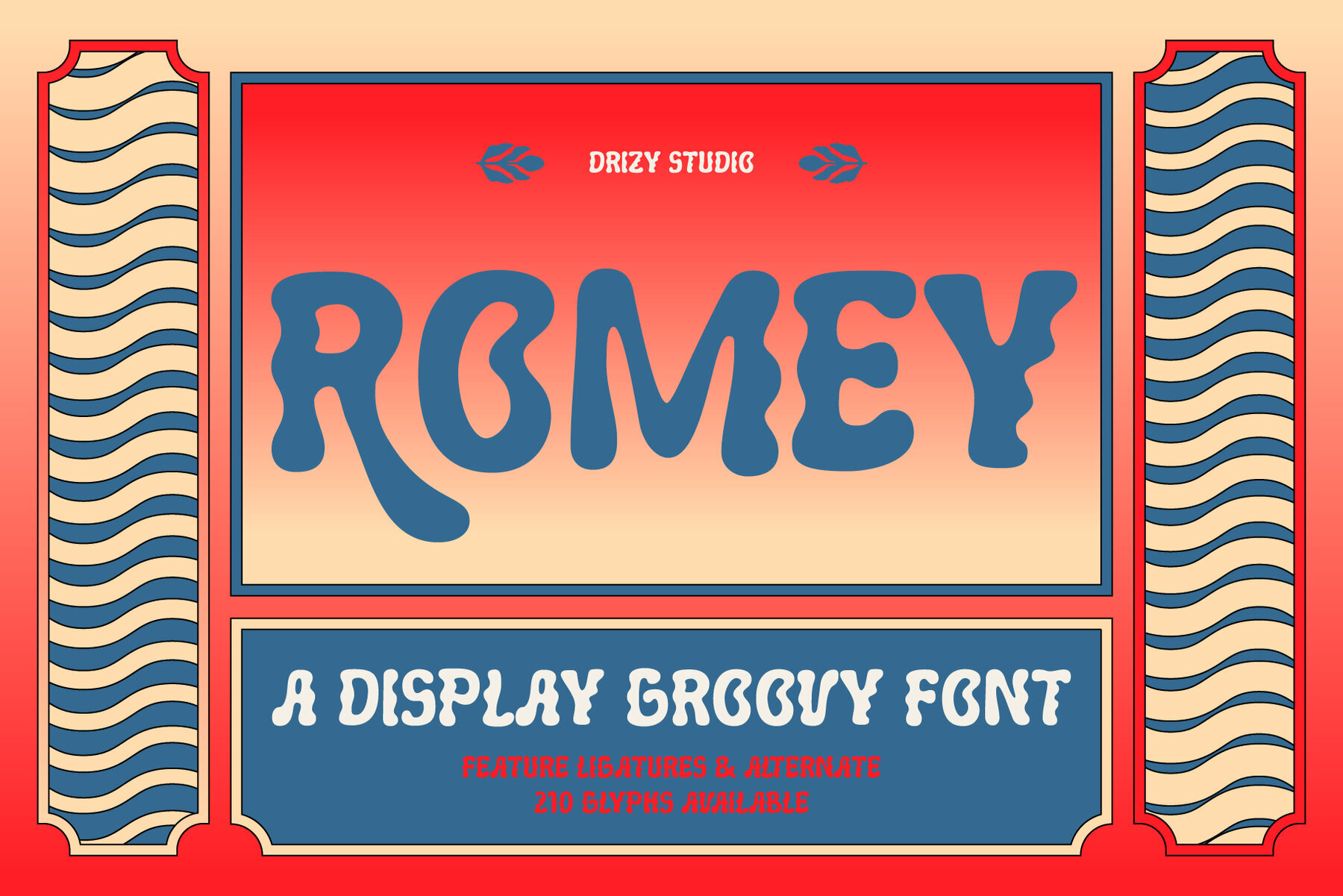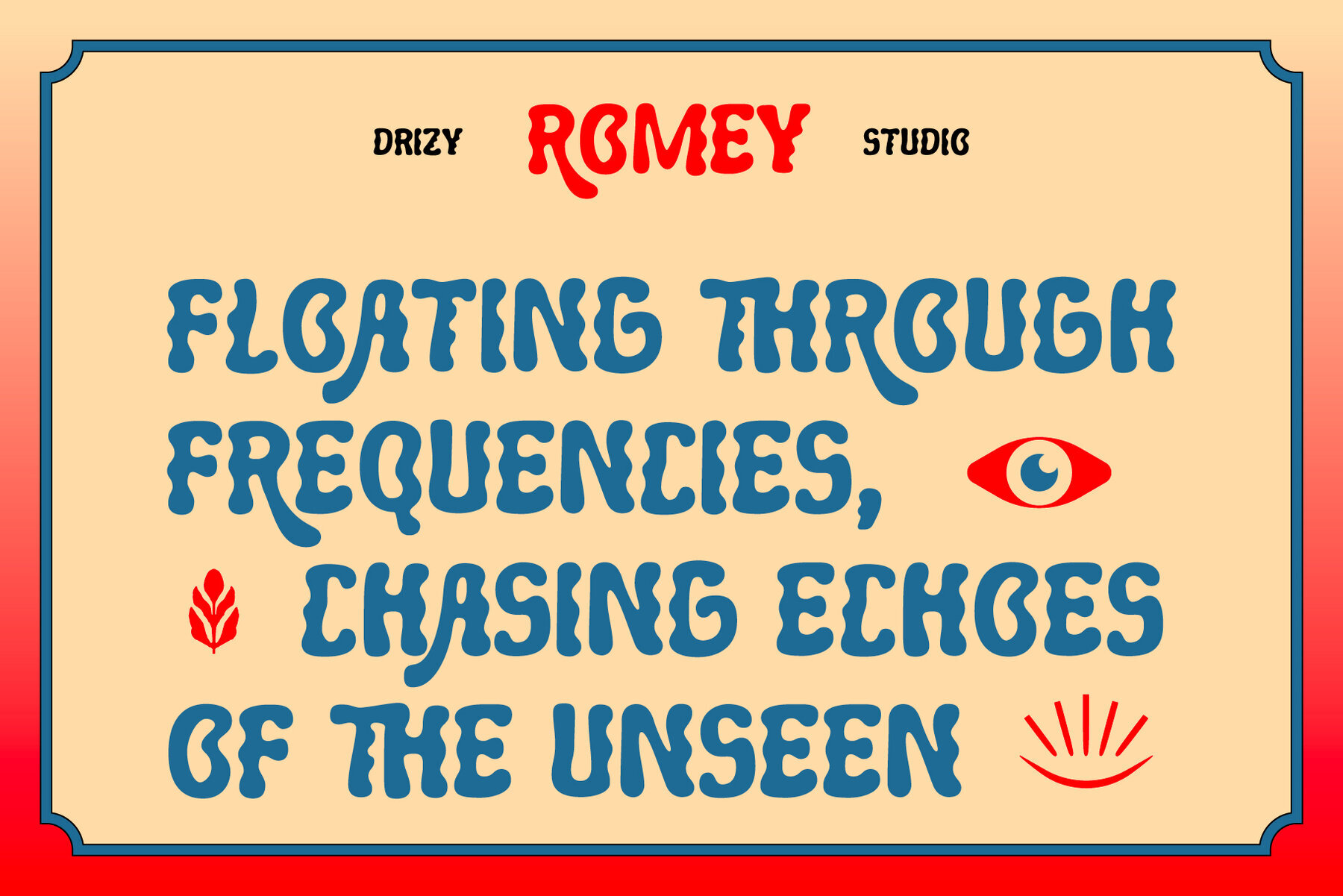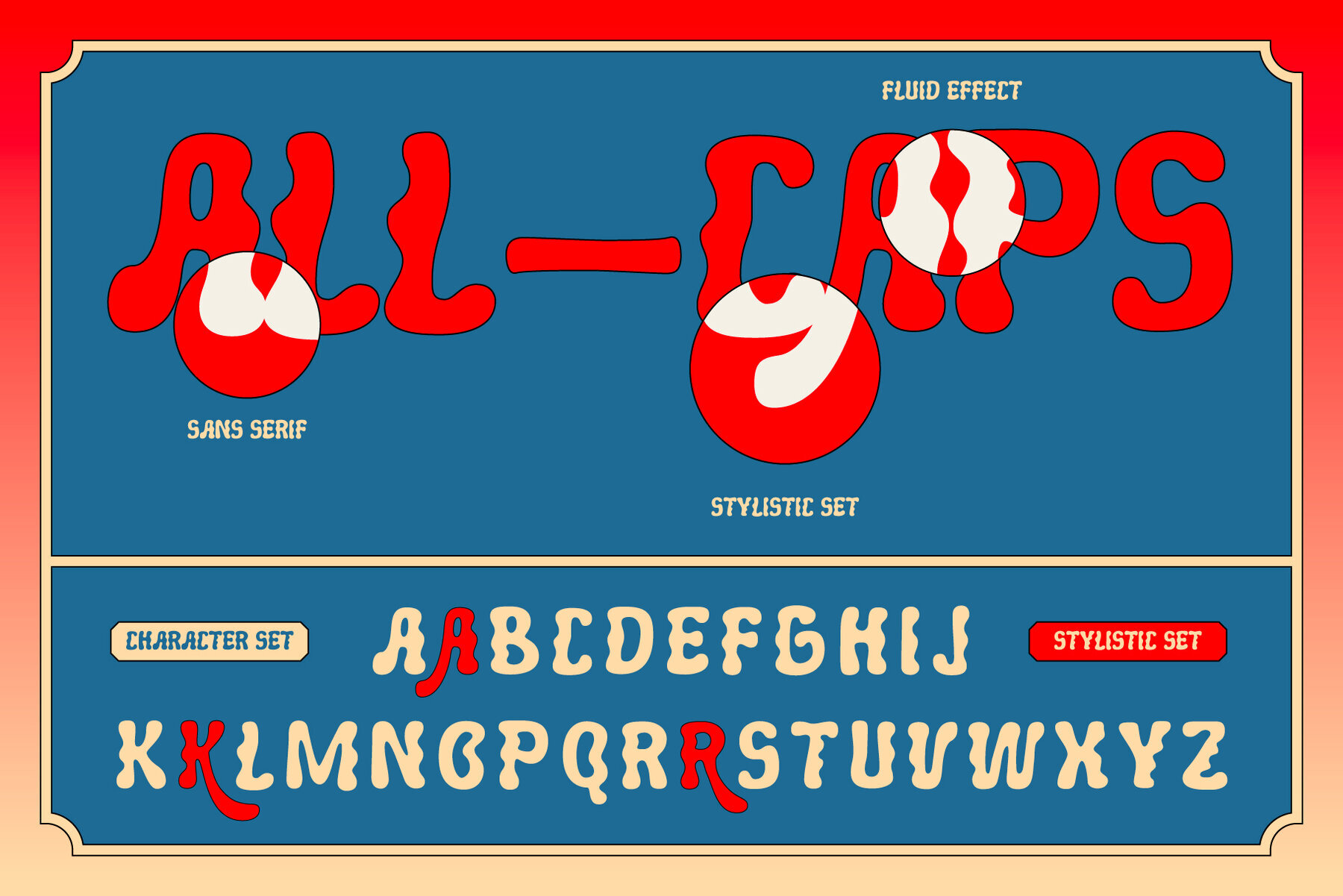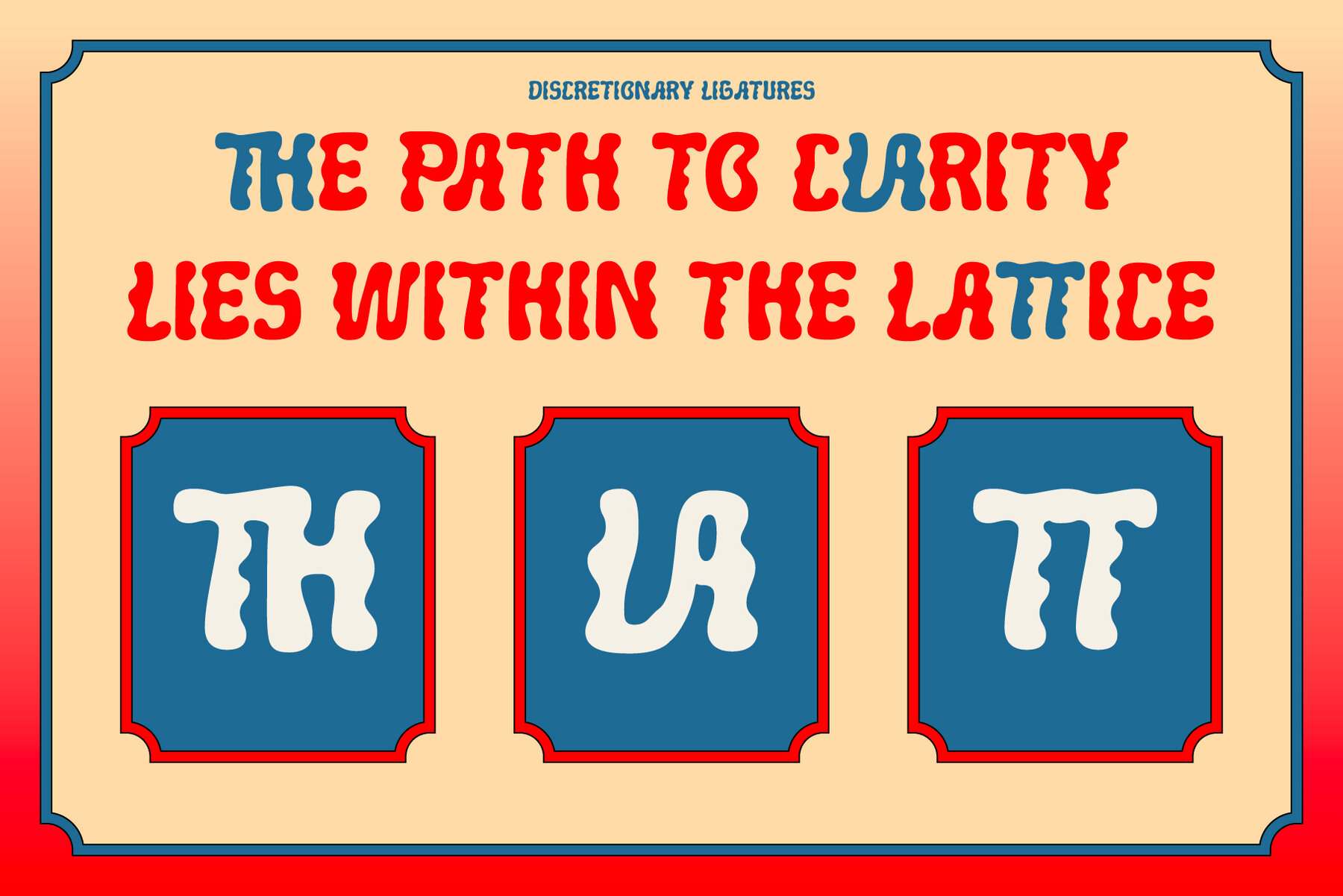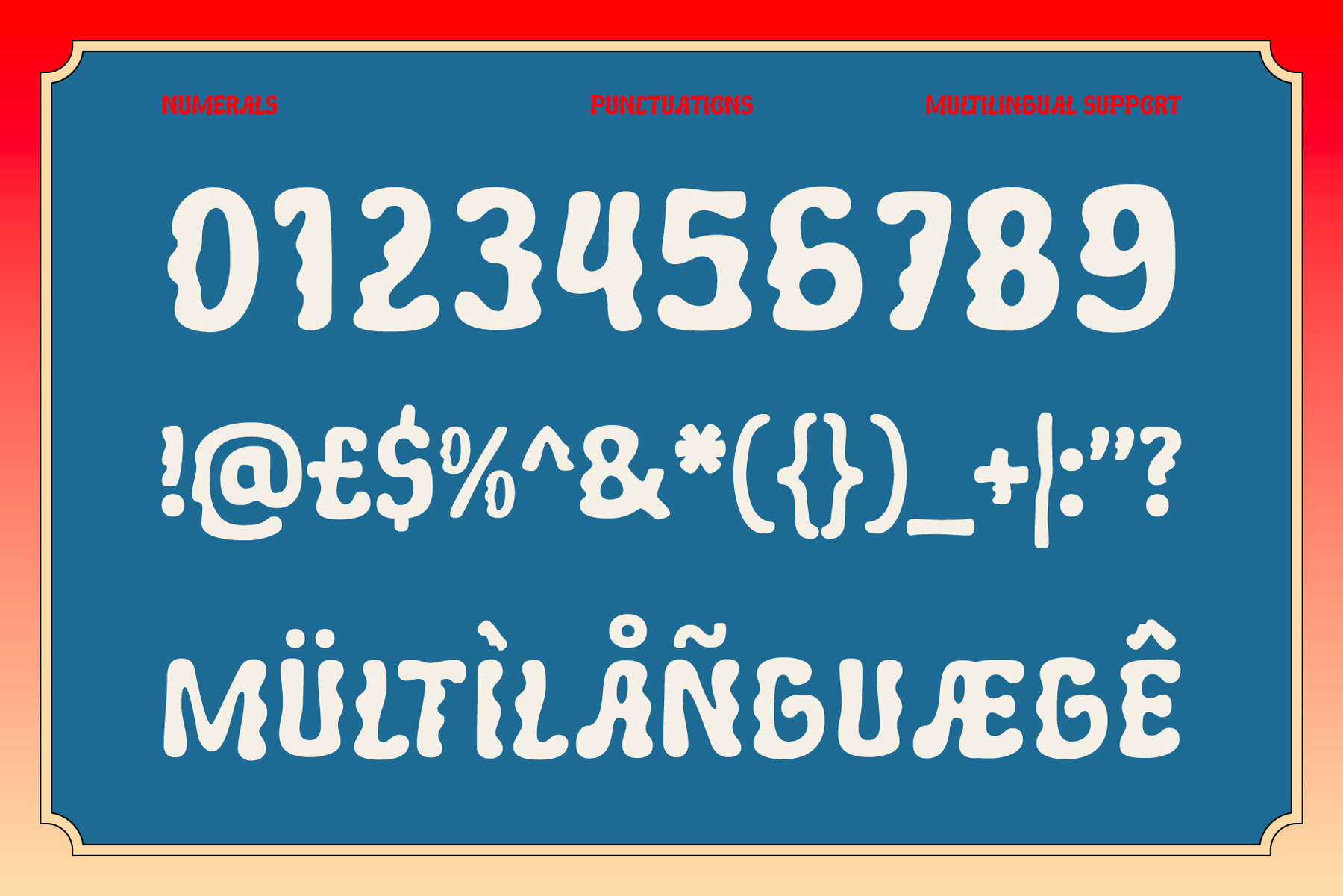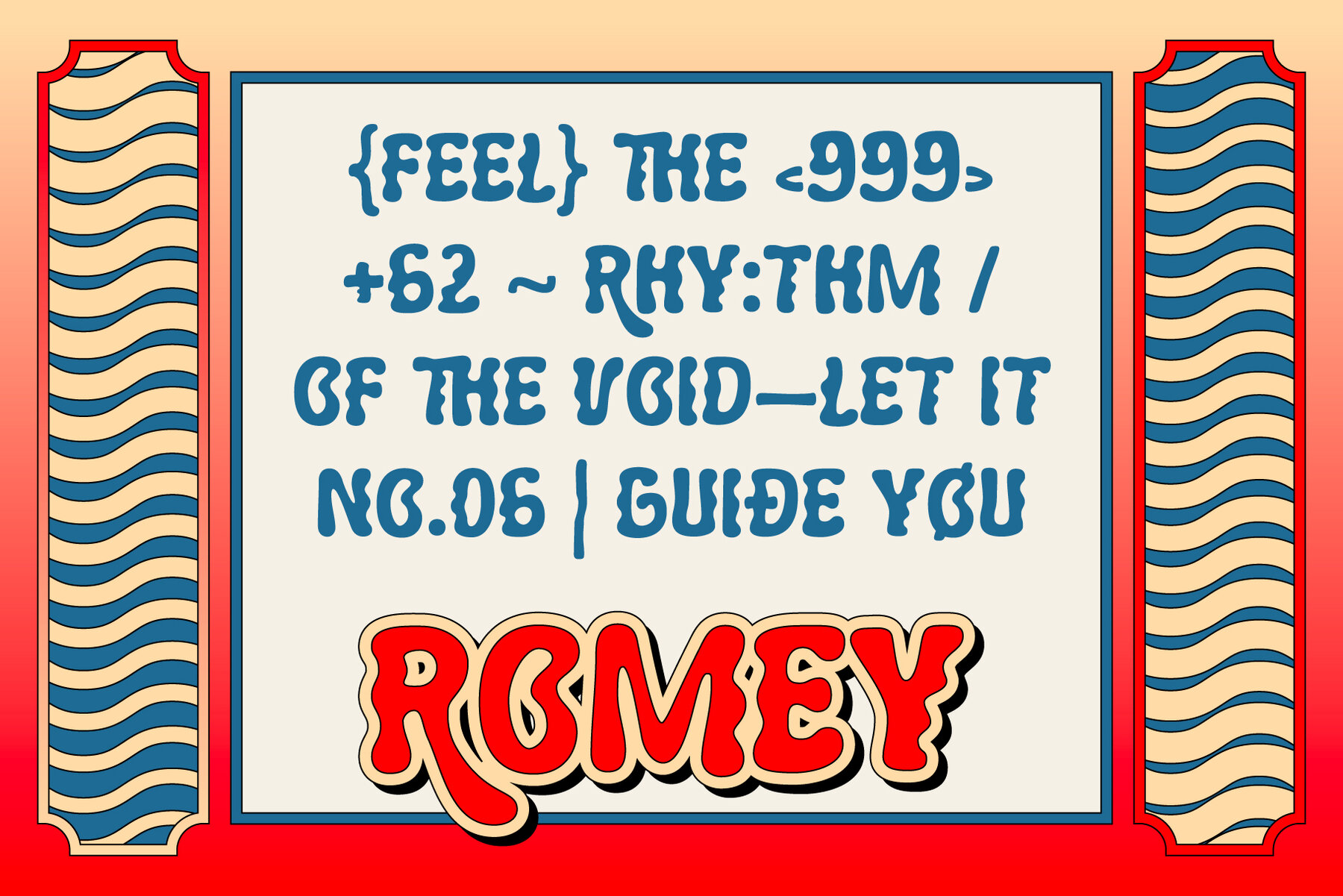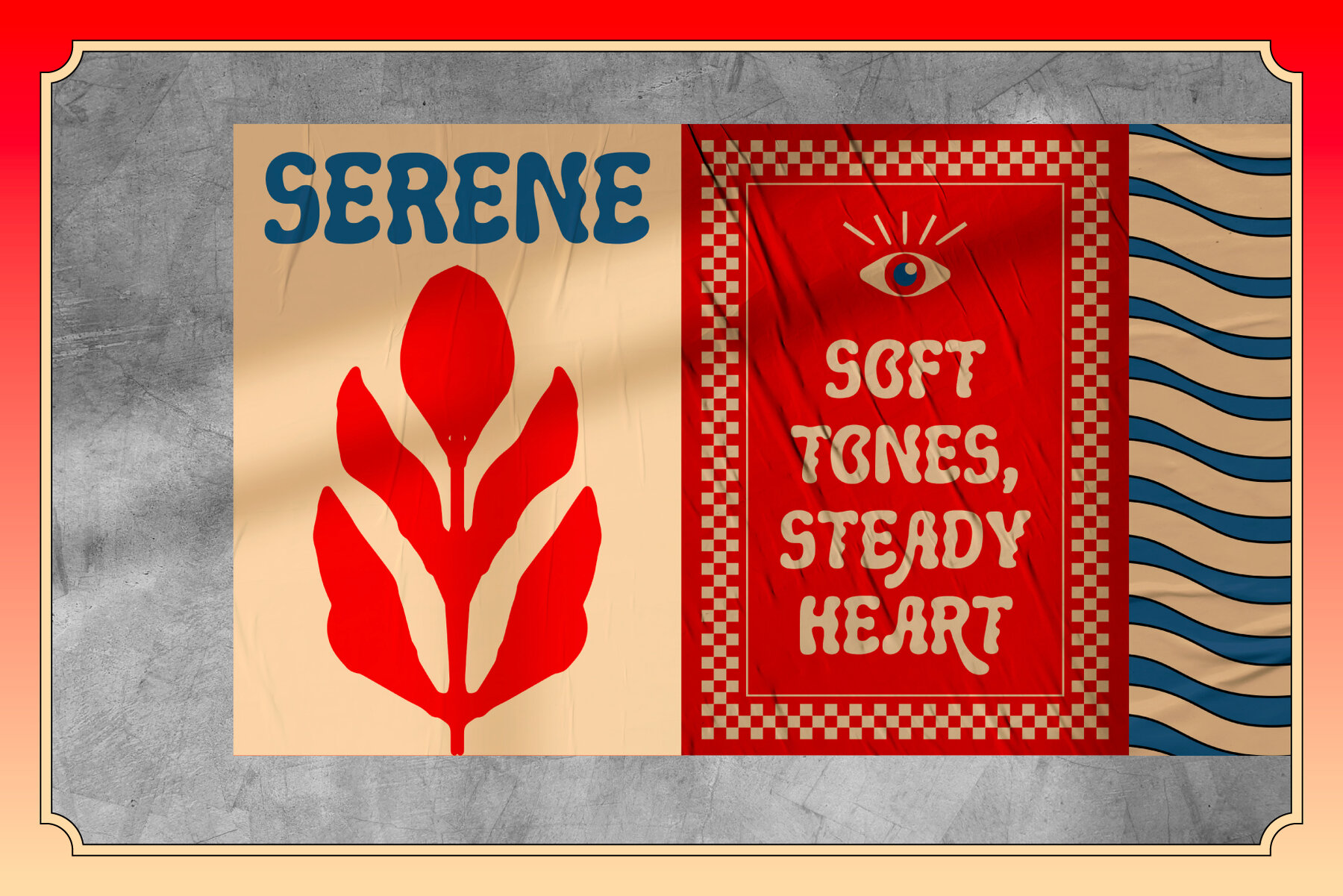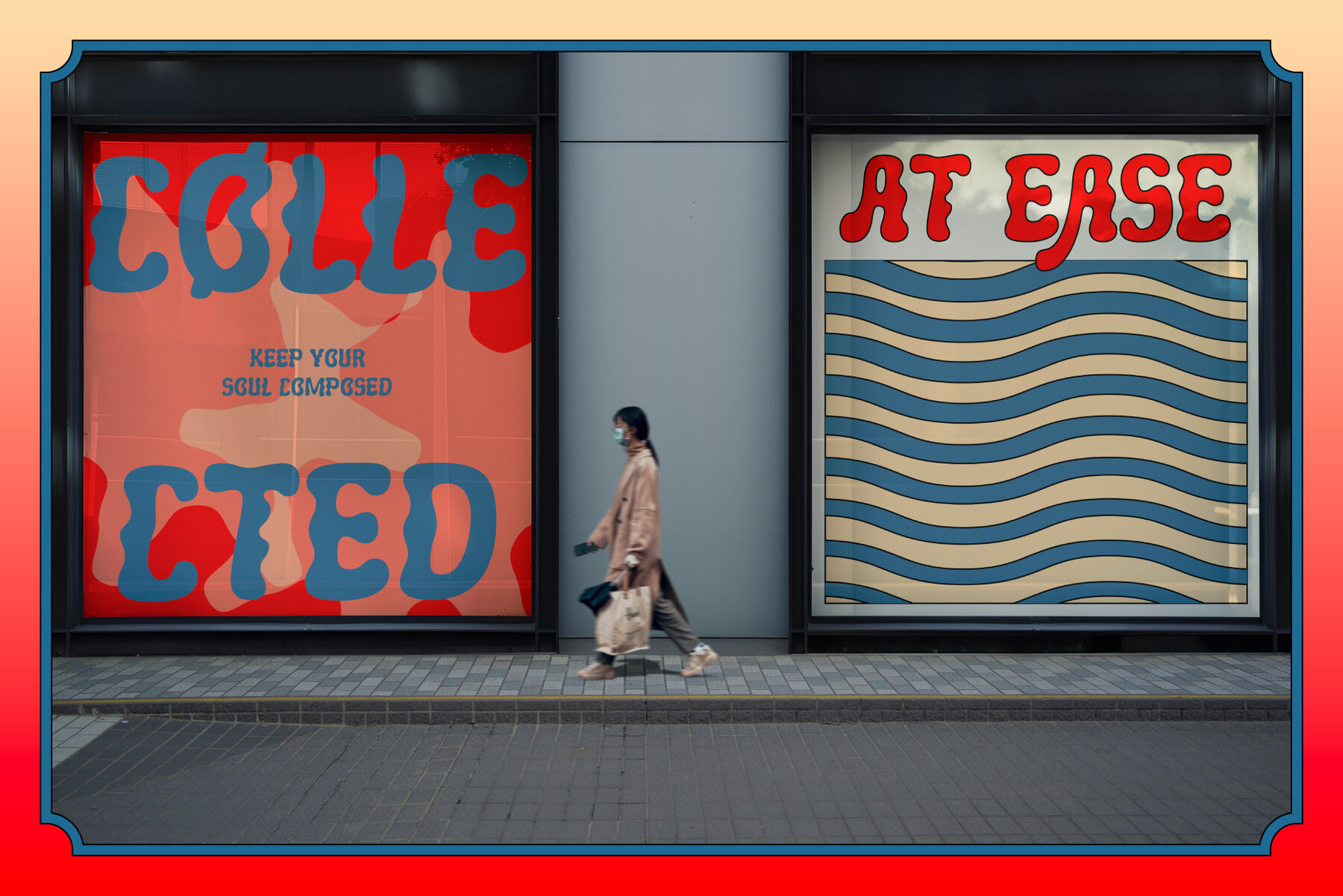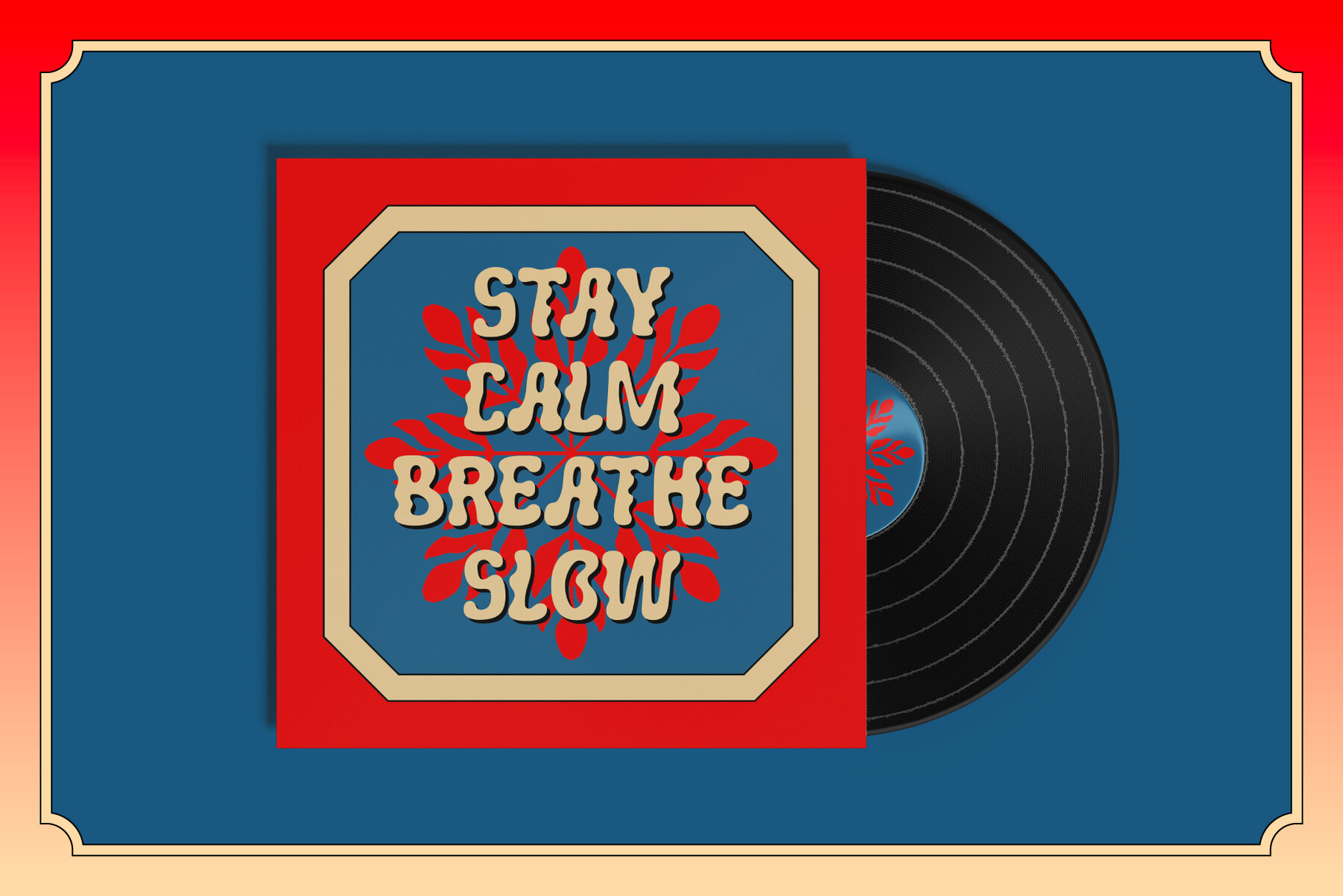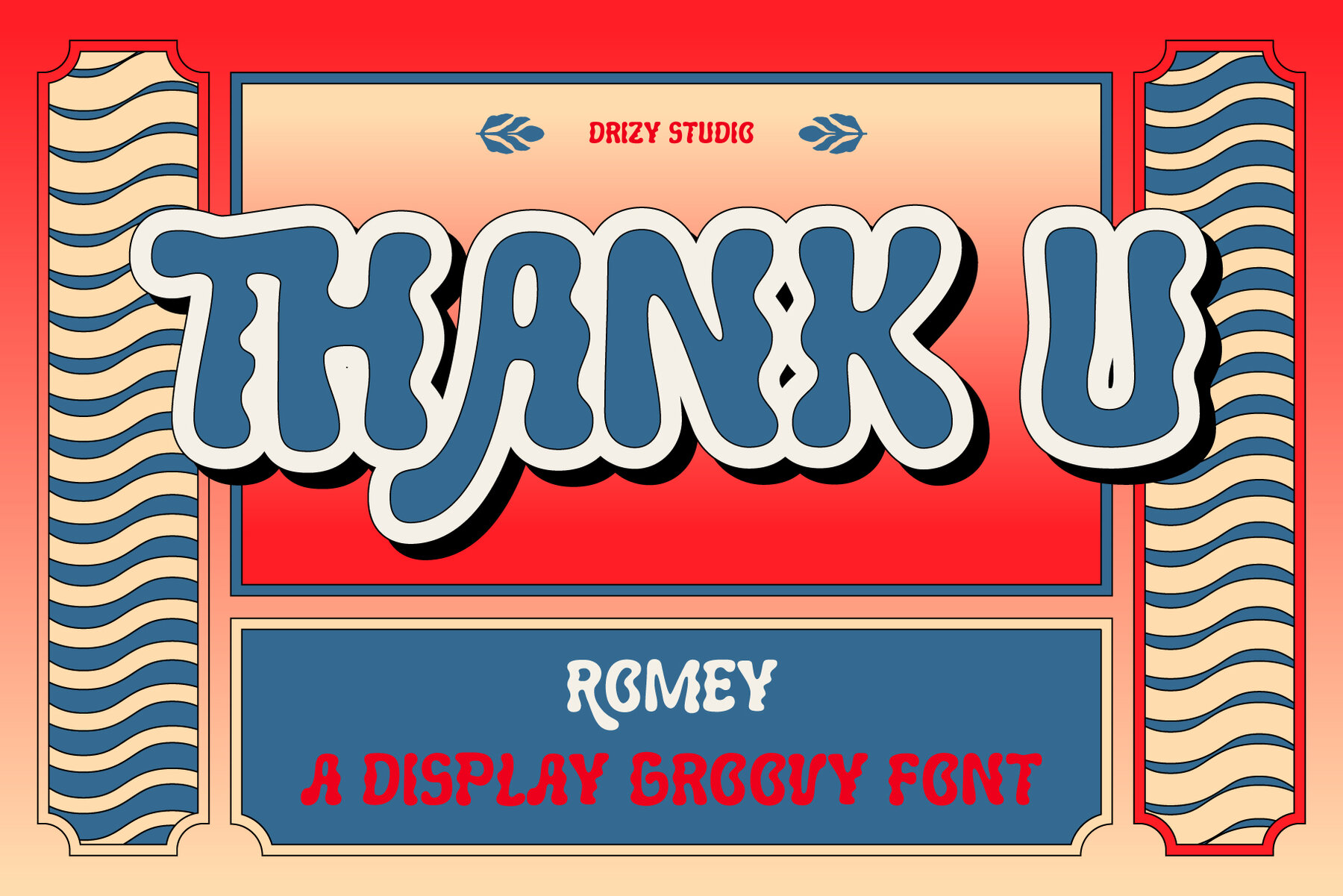
Romey Font
Romey Regular
Romey Display Groovy Font embodies a playful essence, infusing designs with the seamless vigor of liquid motion. Part of the Fluid Dynamics font family, Romey harmoniously merges a retro vibe with organic curves and smooth transitions, crafting a dynamic style. Each letter bursts with personality through prominent forms, sweeping terminals, and a rhythm akin to waves or fluid movements—capturing a balance between vintage allure and contemporary charm. This typeface doesn’t just convey; it grooves.Romey: A Groovy Display Typeface